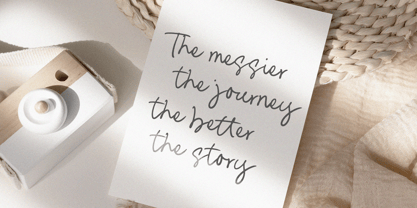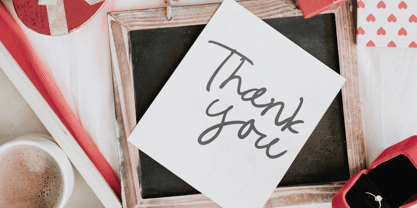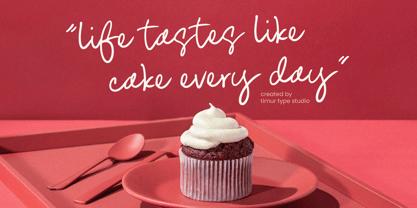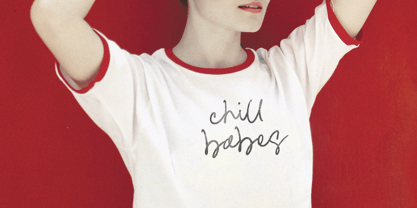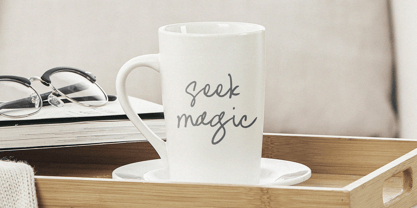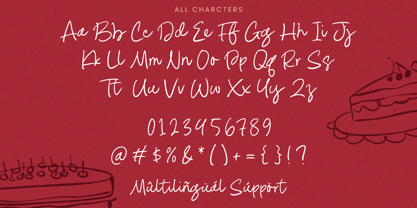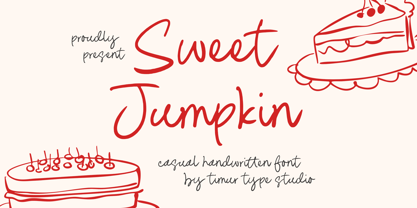
Sweet Jumpkin
by Timurtype
The Sweet Jumpkin Font Family was designed by Wara Sigit Tri Pamungkas and published by Timurtype. Sweet Jumpkin contains 1 styles.
Introduced by Timurtype Studio!
Sweet Jumpkin is a Casual Handwritten Font
This font is a playful, casual handwritten font that exudes charm and friendliness. With its smooth curves and slightly bouncy baseline, it adds a whimsical touch to any design. Perfect for greeting cards, social media graphics, and creative branding, Sweet Jumpkin brings warmth to your text.
Sweet Jumpkin Font also supports multilingualism